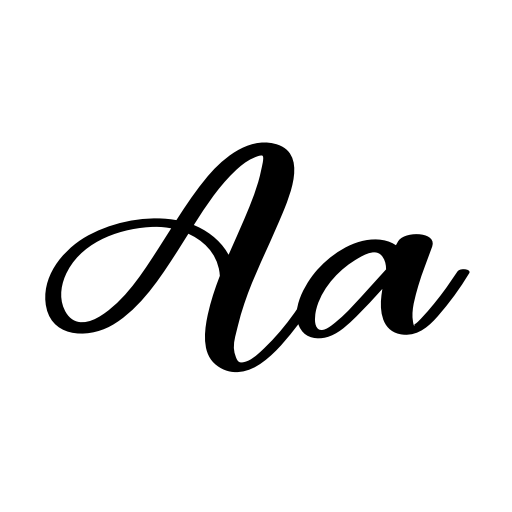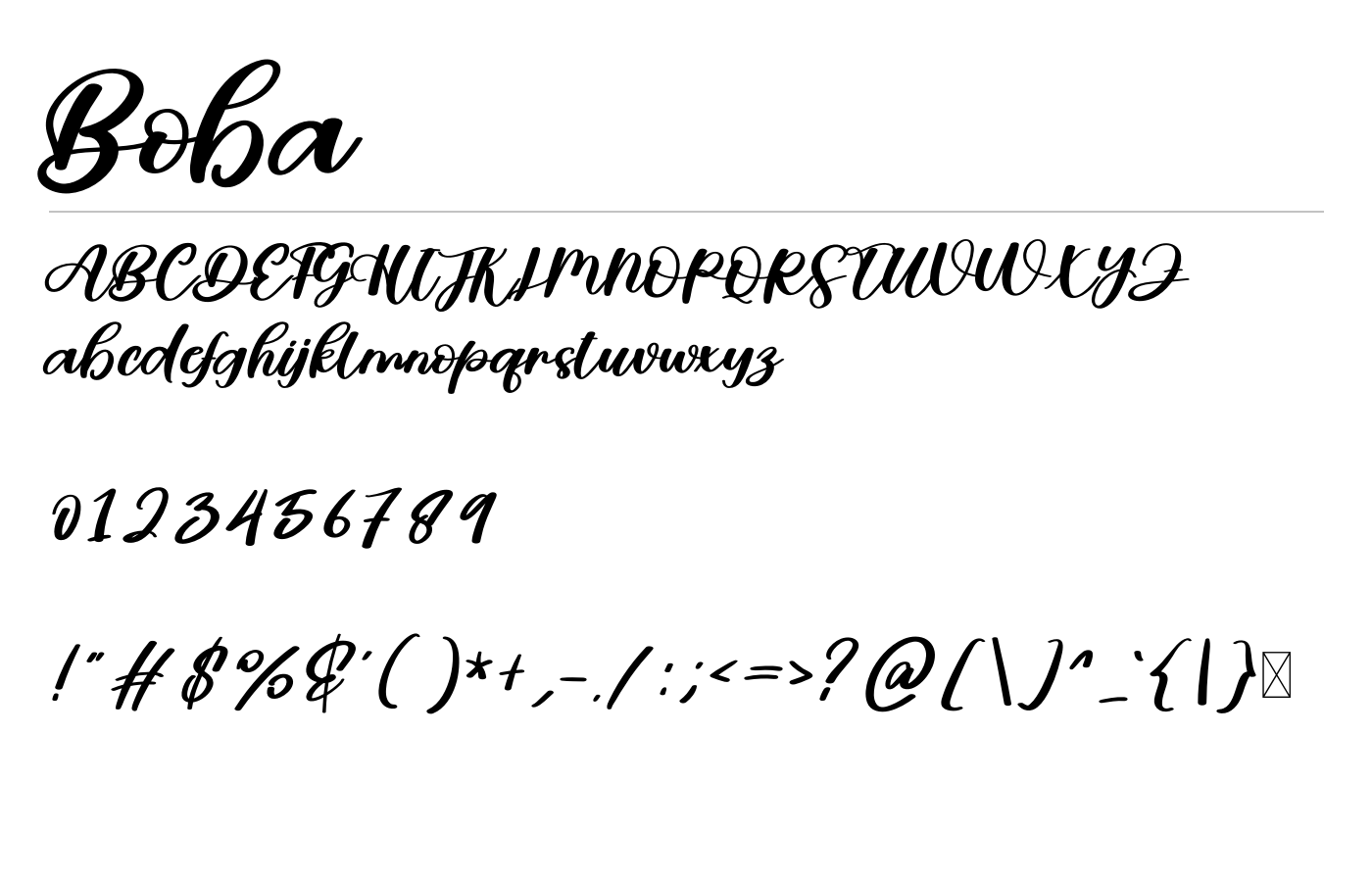
Boba Font is a graceful script typeface with a friendly, handwritten feel that combines smooth curves and lively swashes. Its medium weight and moderate contrast make it versatile for elegant yet approachable designs, while the flowing letterforms add a personal, artistic touch perfect for invitations, branding, and creative headlines. This font works beautifully where a warm, stylish, and expressive look is desired to connect with the audience.
Boba Font
About Boba Font